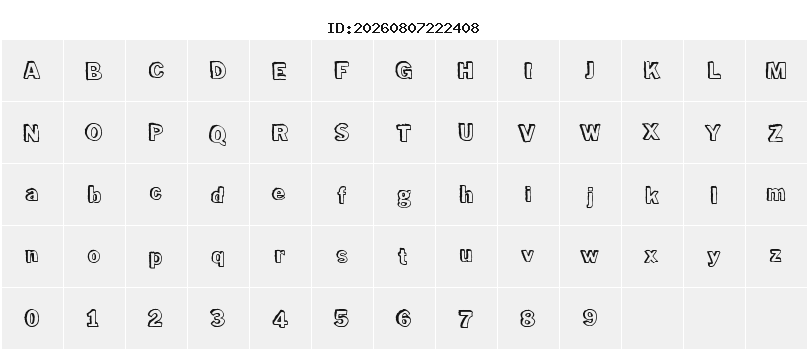
PurpleDrank Preview
• Font Name: PurpleDrank
• Full Font Name: PurpleDrank
• Version: Version 1.00 November 28, 2016, initial release
• Designer: Max Infeld
• Description: Created by Xerographer Studios in Chico, California.
About PurpleDrank.ttf
PurpleDrank.ttf is a modern, elegant sans-serif font designed for ultimate readability and visual harmony. Perfect for branding, headlines, web design, and print materials.